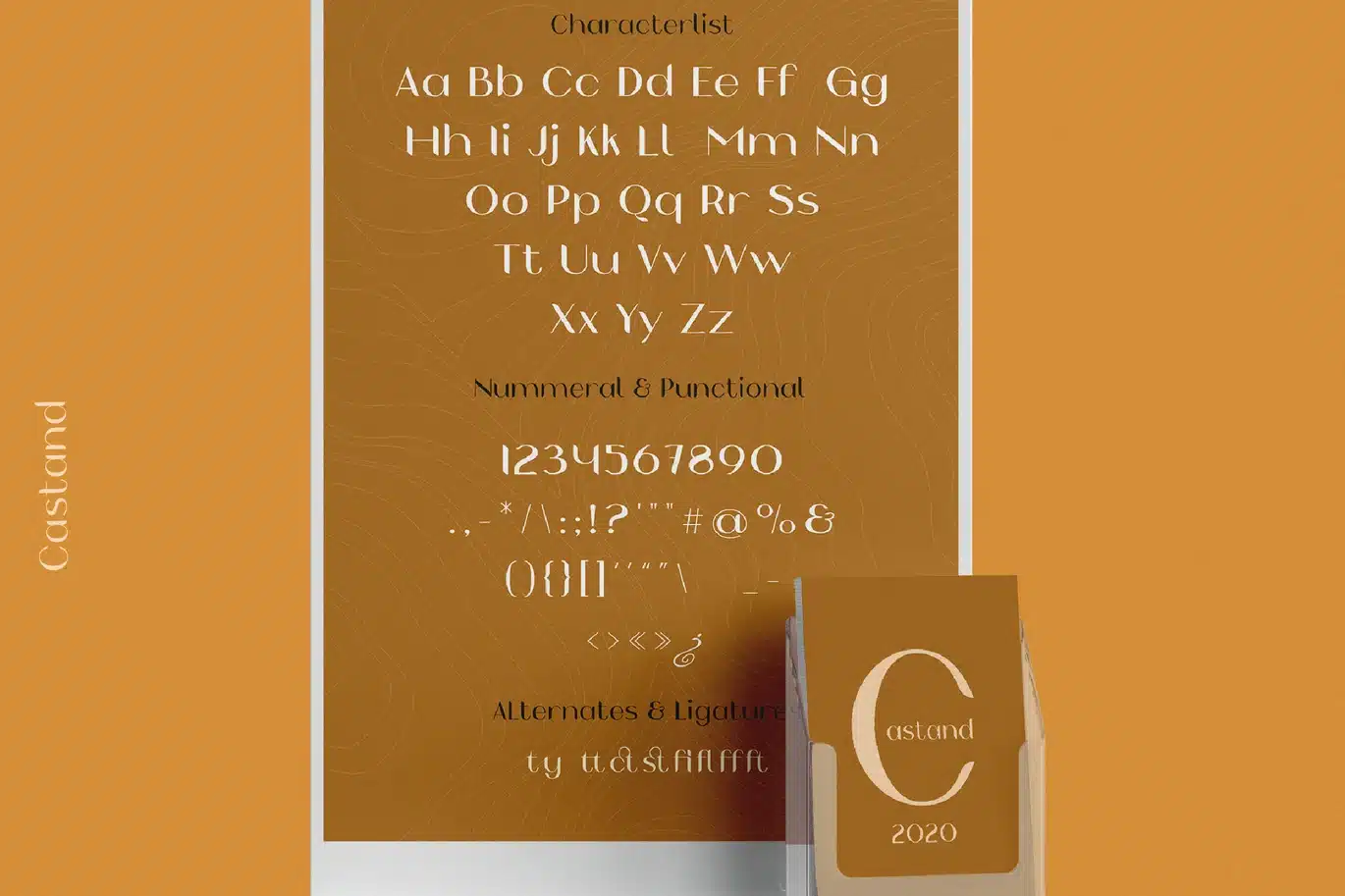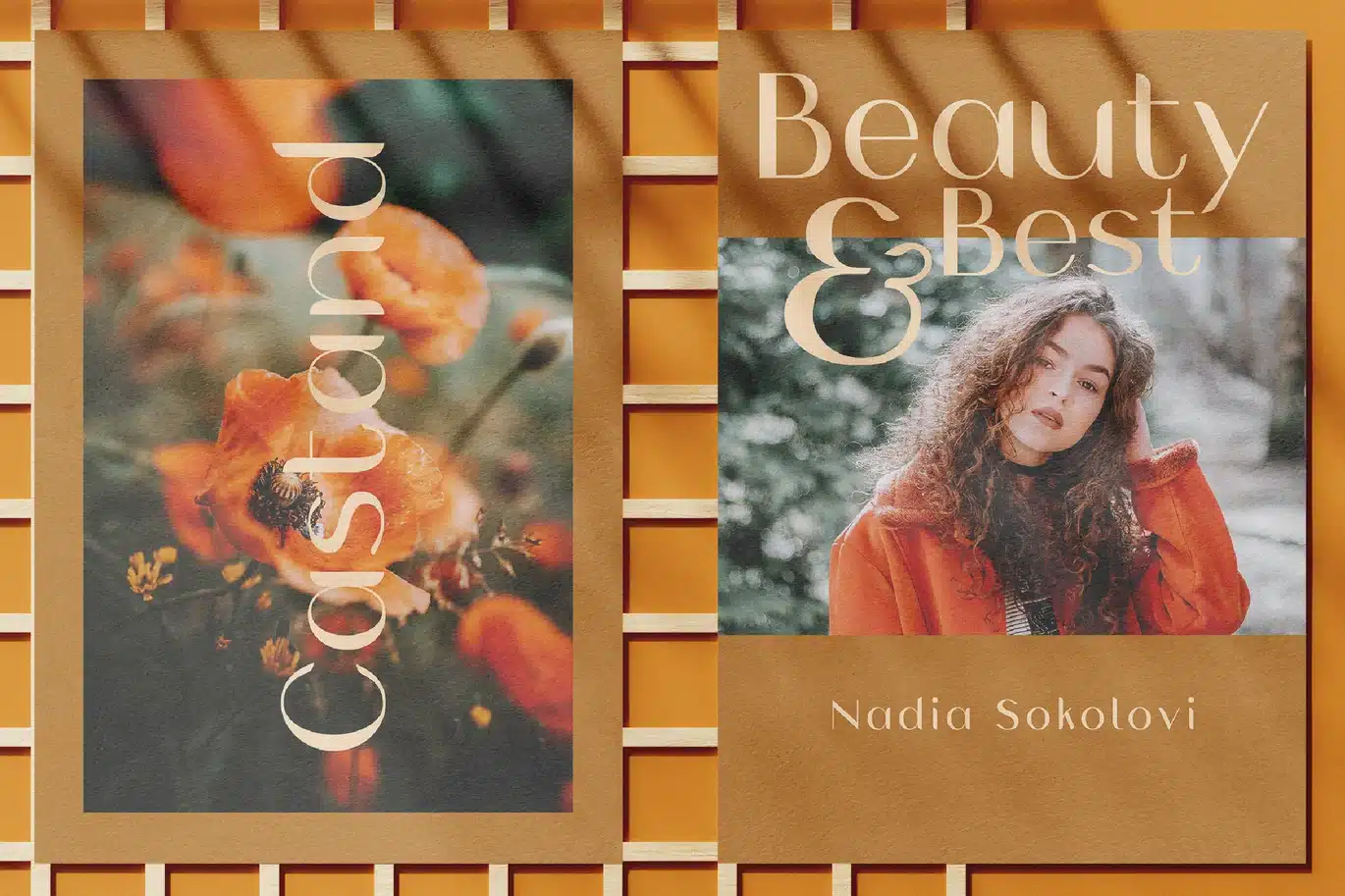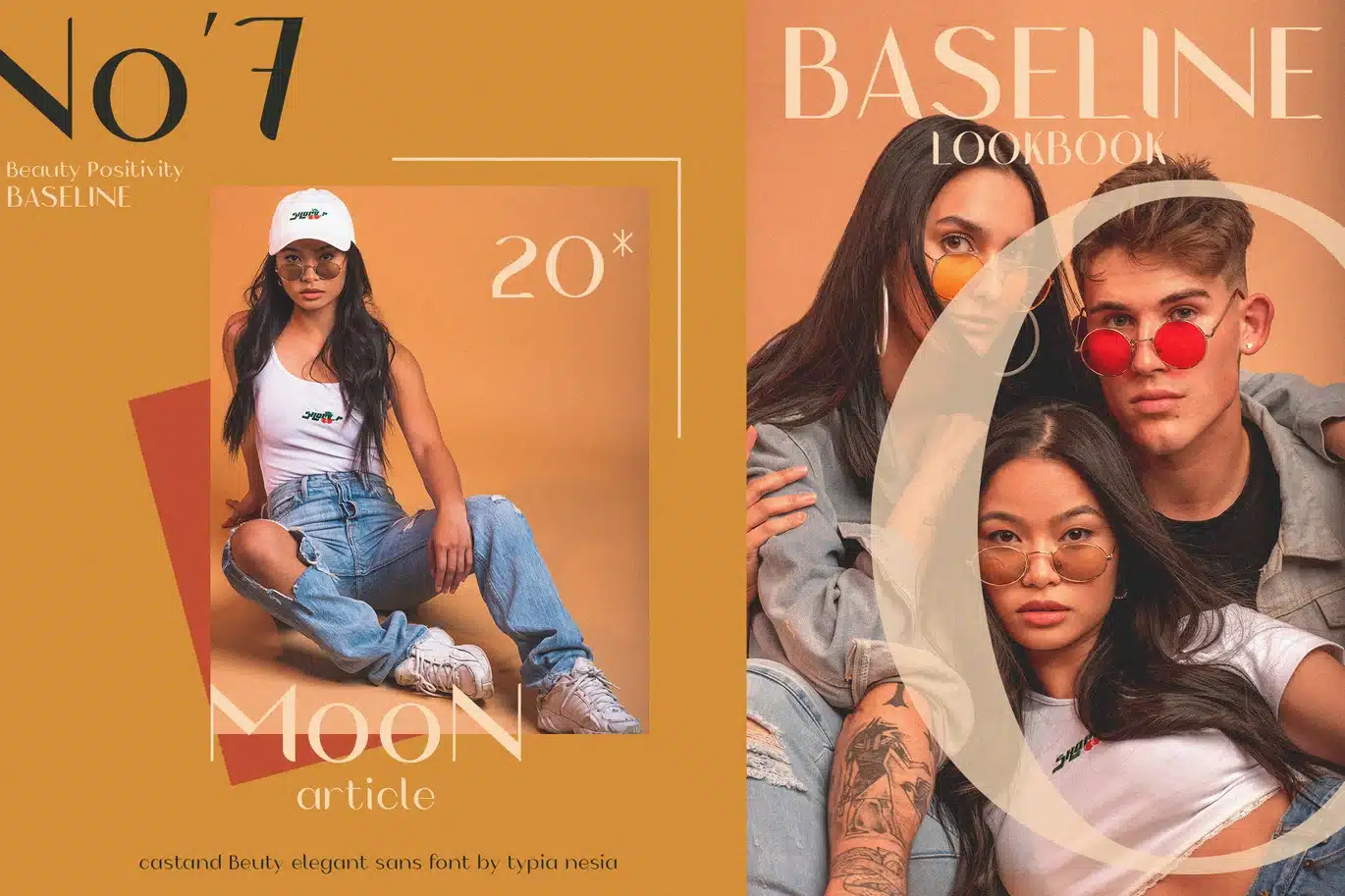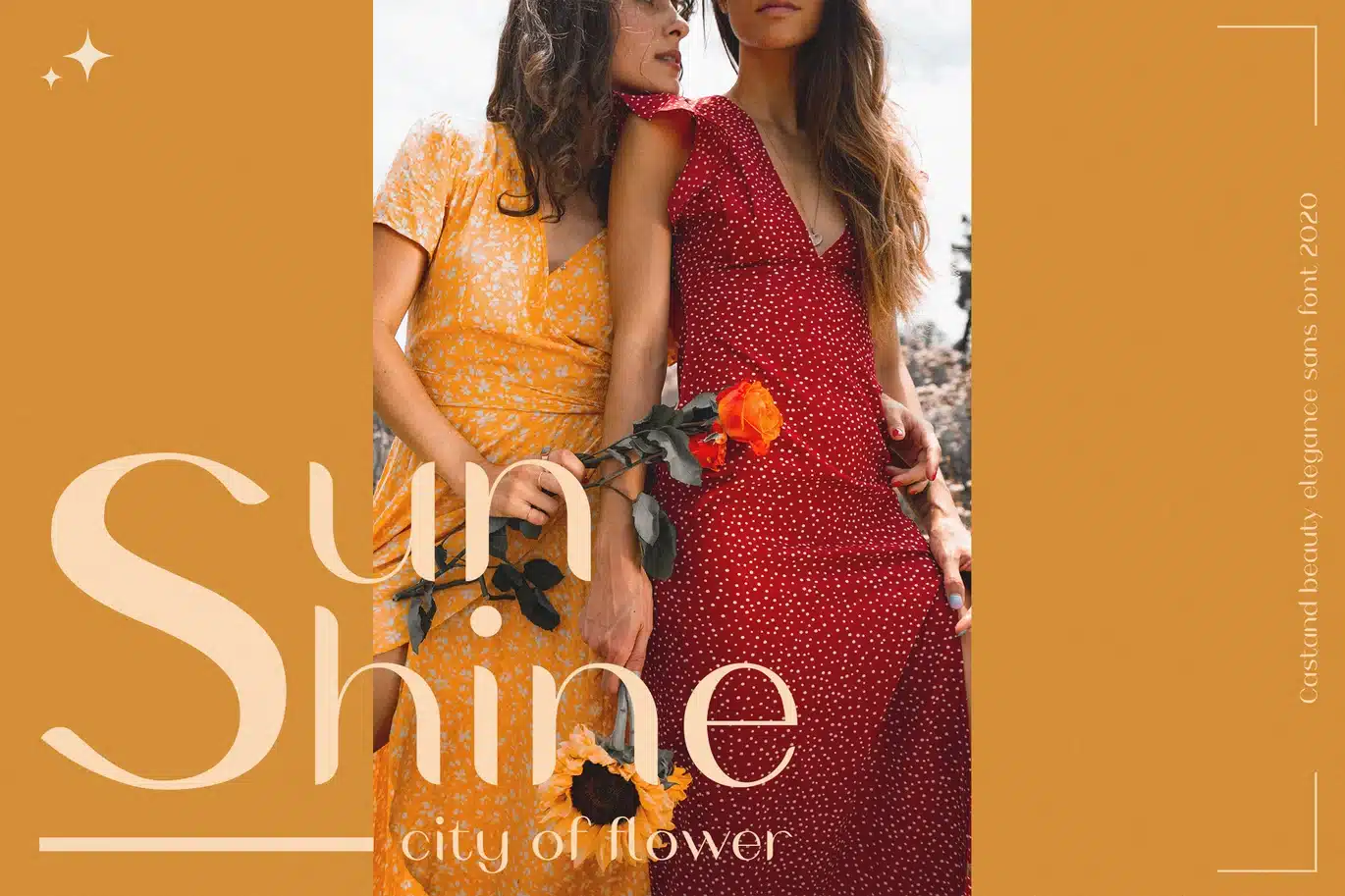
Castand – Beauty Sans Serif Font
Castand - Beauty Elegant Sans Serif Font
Castasd Sans font is perfect for your up coming projects. Such as luxury logo branding, editorial design, stationery design, Elegant Modern Fashion, Salon Beauty, feminine advertising design, blog / website design, card invitation, art quote, home decor, book/cover title, special events ( wedding, birthday, etc ), and any more.